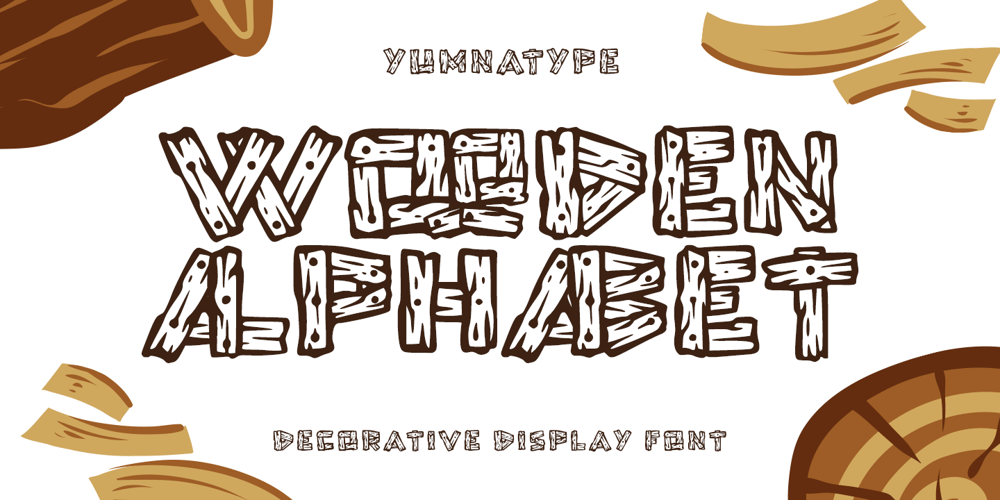
Wooden Alphabet
Wooden Alphabet font
Wooden Alphabet Font Family was designed by Donis Miftahudin and published by Yumna Type. Wooden Alphabet contains 1 styles and family package options. Wooden Alphabet is a peculiar wood texture and shape-inspiring display font having unique, attractive letter designs in prominent uppercases along with wood textures to express natural nuances. All of the font letters are very carefully, smoothly designed in detail as if they were made of real wood. In fact, wood textures on the letters leave the impressions of warmth and nature on the designs.Wooden Alphabet excels at the ability to create natural impressions and warm nuances in order to make your designs look interestingly different for increasing the product’s attractiveness. Such a wood-themed font is a perfect match for any nature, environment, or organic related products. To be greatly legible, you can use it for big text sizes. Wooden Alphabet provides a clipart in accordance with the font theme as a bonus and features you can enjoy.Features: Multilingual Supports PUA Encoded Numerals and Punctuations Wooden Alphabet fits best for various design projects, such as brandings, headings, magazine covers, quotes, printed products, merchandise, social media, etc. Find out more ways to use this font by taking a look at the font preview.Thanks for purchasing our fonts. Hopefully, you have a great time using our font. Feel free to contact us anytime for further information or when you have trouble with the font. Thanks a lot and happy designing.